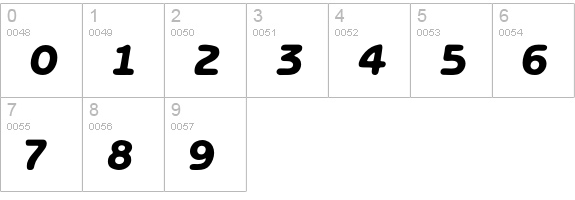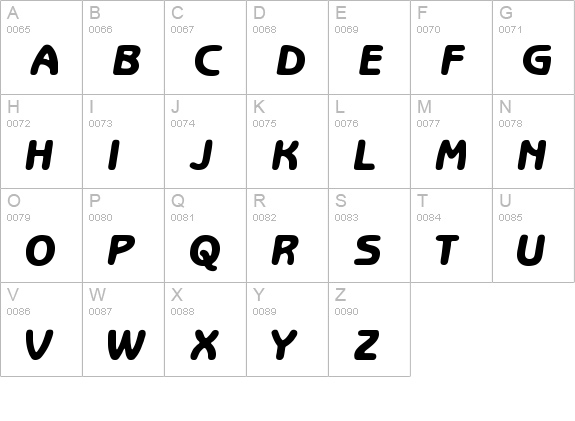
AidaBold Font Details
AidaBold is a stunning and versatile font that exudes elegance and sophistication. With its bold and eye-catching design, AidaBold is perfect for making a statement in any project. This font is ideal for headings, logos, branding, and more, adding a touch of modernity and style to your designs. What makes AidaBold even more appealing is that it is available for free download at FontsMarket.com. That's right, you can easily access this beautiful font without having to spend a dime. So why wait? Enhance your projects with the striking beauty of AidaBold today!